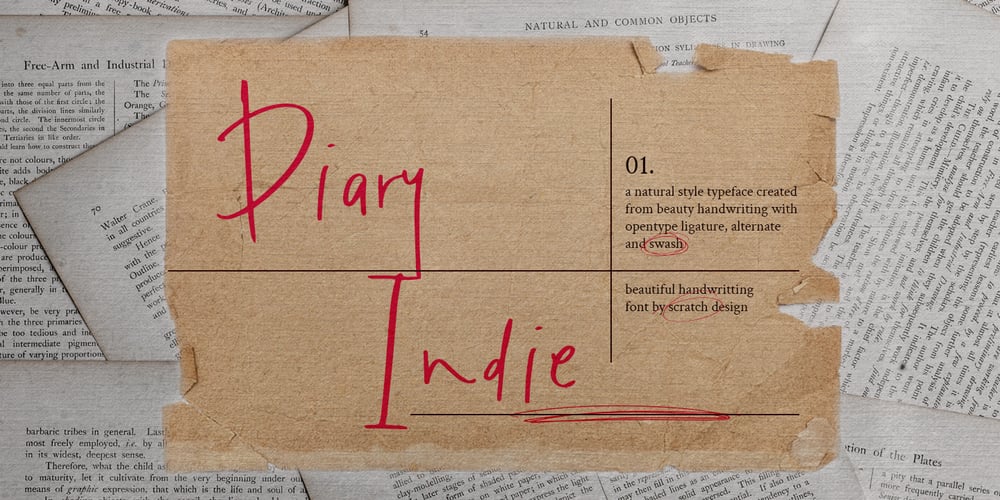
Diary Indie Font Family was designed by Gitayogi Irhandi and published by Scratch Design. Diary Indie contains 1 styles and family package options. Introducing “Diary Indie” it’s an authentic handwritten with natural character. Perfect for creating Instagram quote posts, novel or book TrueType, invitations, labels, packaging, stationary, etc. This is a full font, which features all uppercase and lowercase letters, numbers and punctuation, multi-lingual, and ligatures. Some swash elements are included as bonuses to bring attention to the fun of authentic Diary Indie!Features: Ligatures Numerals & Punctuation Swashes Accented characters Languages SupportedHow to use this font: Just open your Opentype features ( Minimum Compatible with Adobe Photoshop CS 6 and Adobe Illustrator CS 6 ) in Adobe Photoshop go to Window – Glyphs and all the alternates will appear while using the script font to use the ligatures and swashes. As you type, your text will look like a natural signature or handwriting.